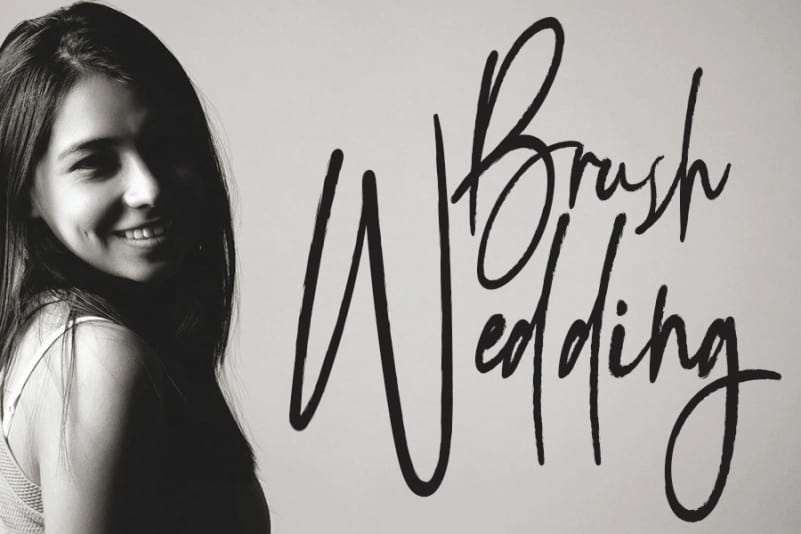
Bellanatture Script Font
Bellanatture Script Font is a distinct handwritten font, the best choice for any design that requires a handwritten touch. Fall in love with its incredibly versatile style and use it to create gorgeous wedding invitations, beautiful stationary art, eye-catching social media posts, and much more!
The latest style letters are perfect for wall displays, wedding invitations, social media post logos, advertisements, product packaging, product designs, labels, photography, watermarks, invitations, stationery, and any project that requires taste handwriting.